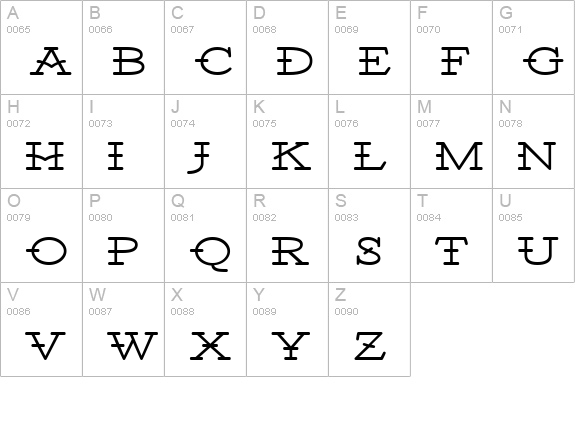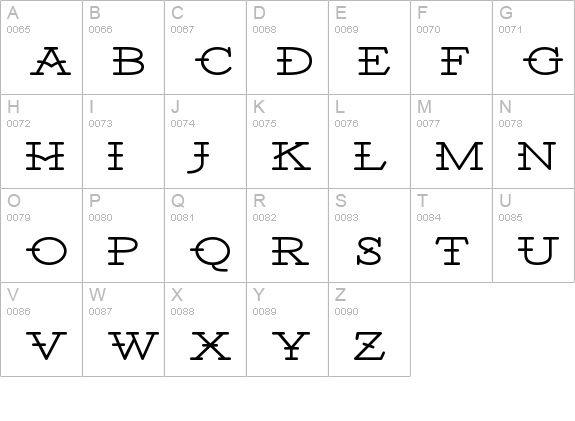
Santiago BTN Wide is a distinctive, extended-width variant in the Santiago typeface family \xE2\x80\x94 well suited to design and typography projects.
Introducing Santiago BTN Wide font, a captivating and versatile typeface that will bring a touch of modern elegance to your designs. This font is the perfect choice for a wide range of projects, from branding and advertising to packaging and editorial design. Santiago BTN Wide font features a unique combination of sleek lines and bold curves, resulting in a visually striking and attention-grabbing aesthetic. Its wide character set allows for seamless integration into various design concepts, ensuring that your message is delivered with clarity and impact. One of the standout features of Santiago BTN Wide font is its versatility. Whether you're looking to create a headline that demands attention or a body text that is easy to read, this font has you covered. Its clean and legible design ensures that your content remains accessible and engaging to your audience. What's more, Santiago BTN Wide font is freely available to download at FontsMarket.com. You can easily access this remarkable font without any hassle or cost, allowing you to elevate your design projects without breaking the bank. So, why wait? Don't miss out on the opportunity to enhance your designs with Santiago BTN Wide font's modern sophistication. Download it for free at FontsMarket.com and discover the endless possibilities this typeface offers for your creative endeavors.